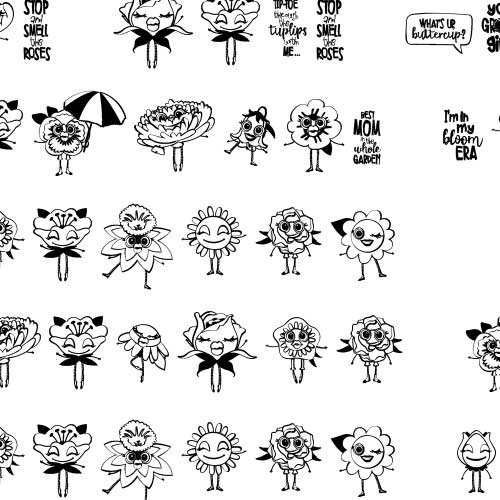
DB Blossom Babes - DB
This fun doodlebat font features 26 babelicious florals and puns perfect for Mother's Day, gifts, teachers, classrooms, cards, planner stickers, scrapbook pages and more!